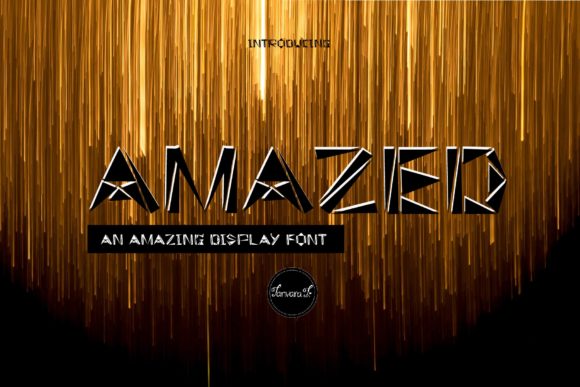
Prepare to be Amazed! Introducing Amazed Font, a captivating display font that will ignite your designs with unparalleled style and authenticity. Its meticulously crafted characters dance across any background, transforming ordinary creations into extraordinary masterpieces.
Immerse yourself in the allure of Amazed Font and unleash your creativity. Whether you're crafting eye-catching logos, alluring posters, or captivating website designs, Amazed Font will elevate your creations to new heights.
Don't settle for ordinary fonts. Embrace the exceptional with Amazed Font and witness the transformative power of truly stunning typography.